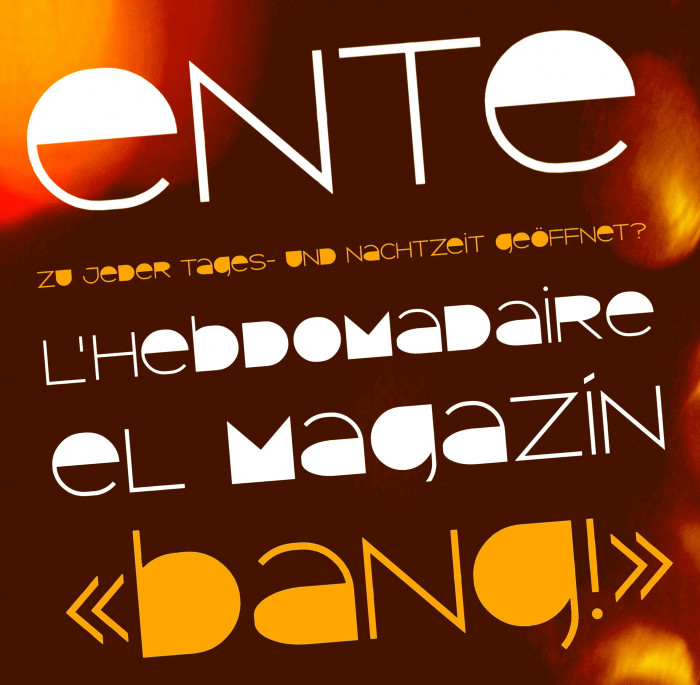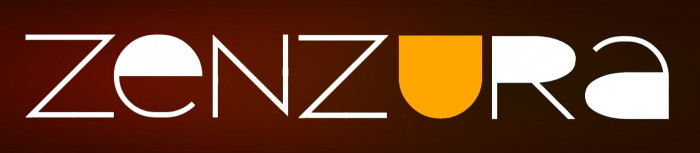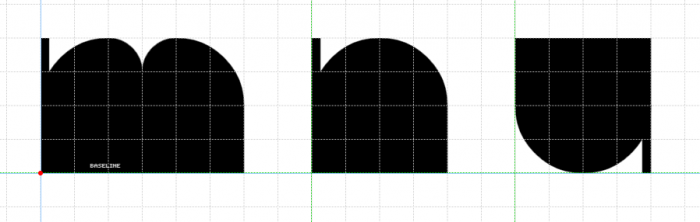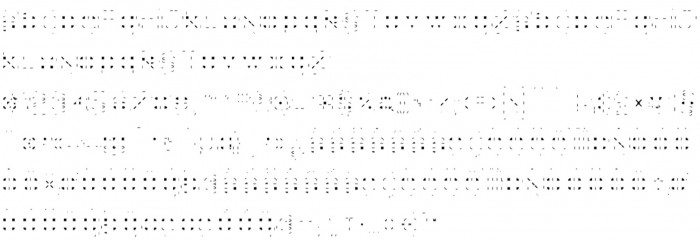
Cool future retro style, I made a couple of fonts like this too. Realy love this style
@Sed4tives: Thanks a lot! It's a simple unpretentious work. It's been fun to see how a usable font could be built from a small sketch on a wrinkled bar napkin. (PS: In addition, it will also serve to congratulate a dear friend.)
Lovely mix of uppercase/lowercase and shaded/empty letters~
I wonder if lowercase alts of m, n, and u would be possible
I was thinking of those as alternate letters of m, n, and u respectively
That should be the real lowercase.
Should The EYE symbol be in the iOS Symbol? ()
good unicase font
what the font looks like in 0.5 by 0.5 filters:
More like syncopate
Nice; although which character is the 👁️ on? Don't want to accidentally summon eyes whenever I type it lol